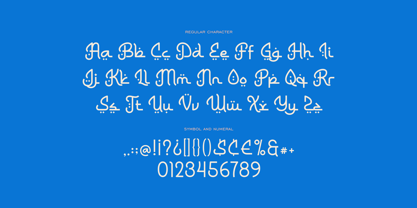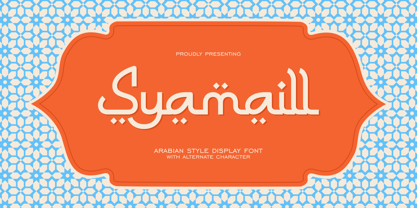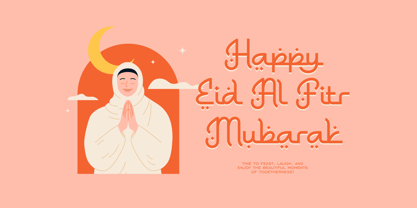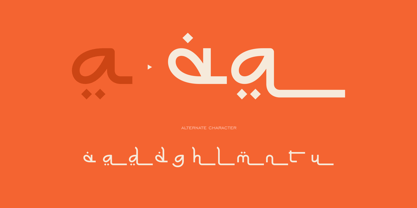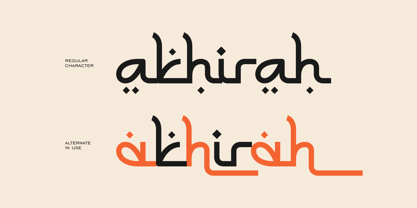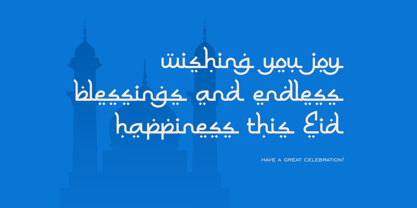
Syamaill
by Runsell Type
The Syamaill Font Family was designed by Satia Hayu Prabowo and published by Runsell Type. Syamaill contains 1 styles.
Syamaill inspired from the timeless beauty of Arabic script, this display font captures the essence of traditional calligraphy while embracing a bold, modern twist. With its flowing, sweeping curves and geometric elegance, this font exudes a sense of sophistication and cultural richness. Ideal for headlines, posters, logos, and branding that aim to evoke a sense of heritage and contemporary flair, it brings a distinctive, exotic touch to any design. The balance between fluidity and structure makes this font perfect for projects that demand attention and a strong visual presence.
Designers: Satia Hayu Prabowo
Publisher: Runsell Type
Foundry: Runsell Type
Design Owner: Runsell Type